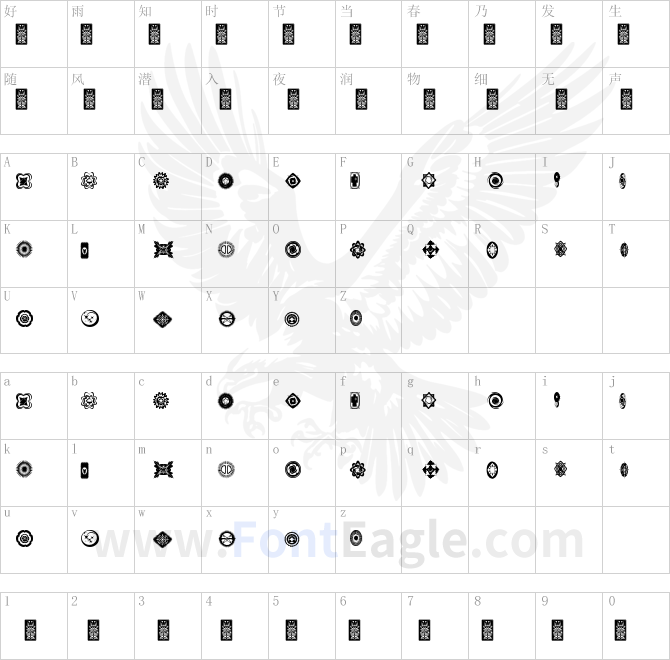
formes-copy-1- is a great font, widely used in graphic design, single-page menu design, poster design and other fields, and is deeply loved by designers.formes-copy-1- download.